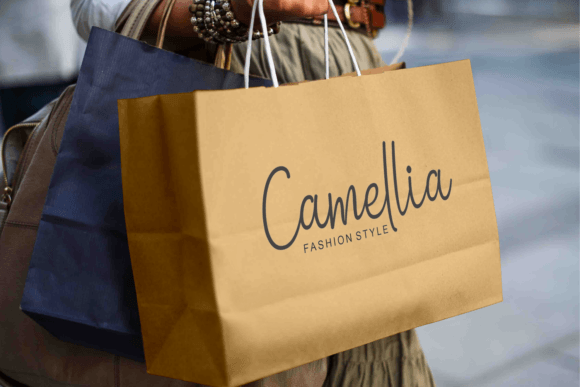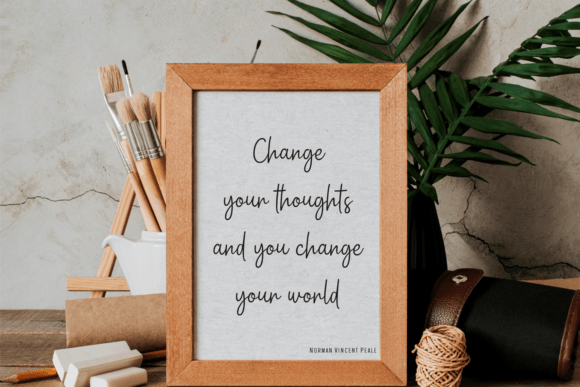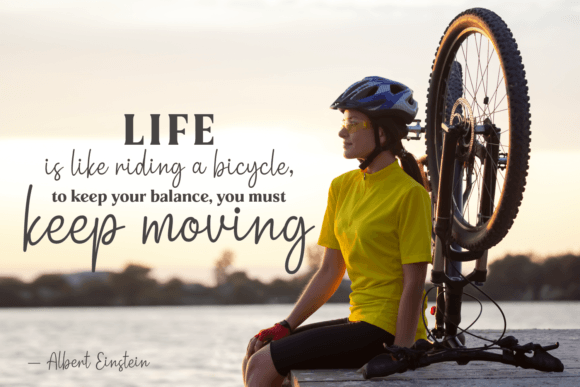
Introducing Berthin Font: Elevate Your Designs with Elegance
In the world of typography, the right font can make all the difference in transforming a design from ordinary to extraordinary. For those seeking a touch of sophistication and grace, the Berthin Font is an exceptional choice. This modern script font is not only visually stunning but also versatile, making it perfect for a wide range of creative projects. In this article, we’ll delve into the features of the Berthin Font and explore how it can enhance your designs, whether you’re a professional designer or a crafting enthusiast.
The Essence of Berthin Font
Berthin Font is characterized by its graceful and elegant script style. Its delicate and thin lines exude a sense of softness and refinement, making it an ideal choice for designers looking to add a subtle yet impactful touch to their creations. This modern typeface is not just about aesthetics; it’s also highly functional, designed to complement a variety of design projects.
One of the standout features of the Berthin Font is its versatility. It’s perfect for a multitude of applications, including:
- Invitations: Whether it’s a wedding invitation, a birthday party invite, or any other special occasion, Berthin Font adds a touch of elegance and sophistication.
- Business Cards: Stand out in the professional world with a business card that features a unique and stylish font. Berthin Font can help you make a memorable impression.
- Logos: For businesses or personal brands looking for a logo that speaks to elegance and modernity, integrating Berthin Font can be a great strategy.
- Sublimation Projects: Crafters and sublimation artists will love using Berthin Font for their projects, such as custom apparel, mugs, and more. The font’s delicate nature translates beautifully onto various materials.
Berthin Font comes with PUA (Private Use Area) encoding, a significant advantage for users. PUA encoding allows for easy access to all the glyphs and swashes included in the font. This means you can effortlessly incorporate intricate details and flourishes into your designs without the hassle of navigating through complicated character maps. The inclusion of swashes and glyphs opens up a world of creative possibilities, enabling you to customize your projects to your heart’s content.
Why Choose Berthin Font?
With so many fonts available, why should Berthin Font be on your radar? Here are a few compelling reasons:
- Elegance: Berthin Font brings an unmatched level of elegance to any design. Its unique style can elevate your projects, setting them apart from the rest.
- Readability: Despite its delicate nature, Berthin Font maintains excellent readability, making it suitable for both headings and body text.
Tips for Using Berthin Font
To make the most of Berthin Font, consider the following tips:
- Pair it Wisely: Combine Berthin Font with complementary fonts to create visual interest. A serif font for body text can create a nice contrast.
- Experiment with Sizes: Don’t be afraid to experiment with different font sizes. Berthin Font’s elegance shines at larger sizes but can also add subtle sophistication in smaller applications.
- Utilize Swashes: Take advantage of the swashes and glyphs to add a personal touch to your designs. These elements can make your projects stand out.
| Font Name | Berthin Font |
| Author | Andrian Dehasta |
Berthin Font is more than just a typeface; it’s a design tool that can transform your creations with its elegance and versatility. Whether you’re working on a professional project or a personal crafting endeavor, this modern script font is sure to leave a lasting impression. With its PUA encoding for easy access to glyphs and swashes, Berthin Font offers endless possibilities for customization and creativity. Elevate your designs with the soft, sophisticated touch of Berthin Font and discover the difference it can make in your work.